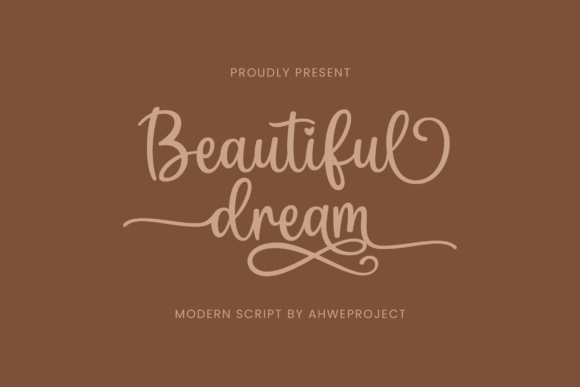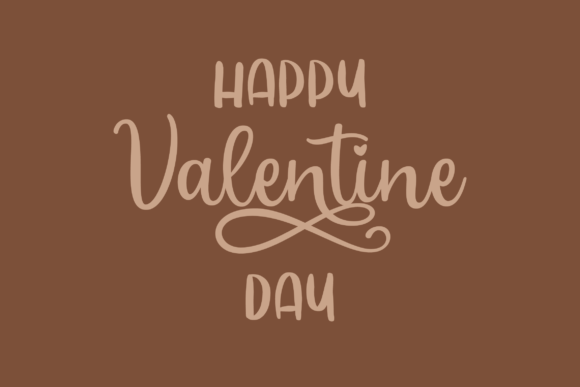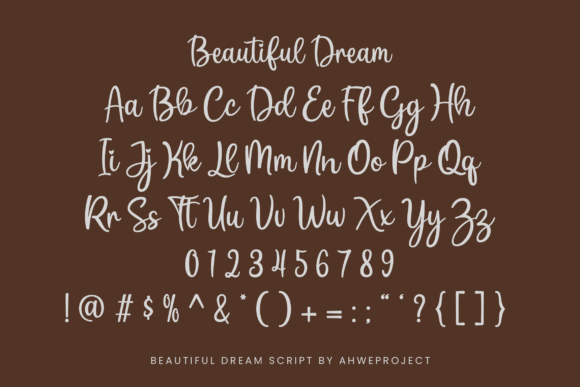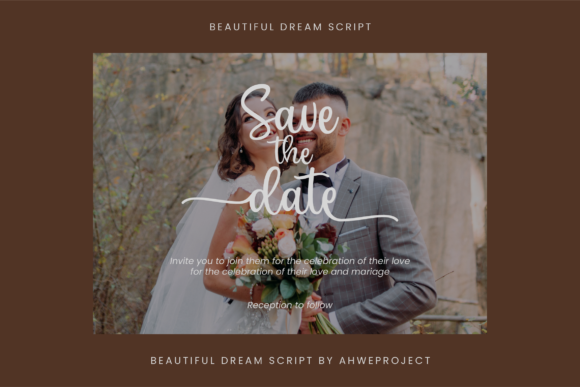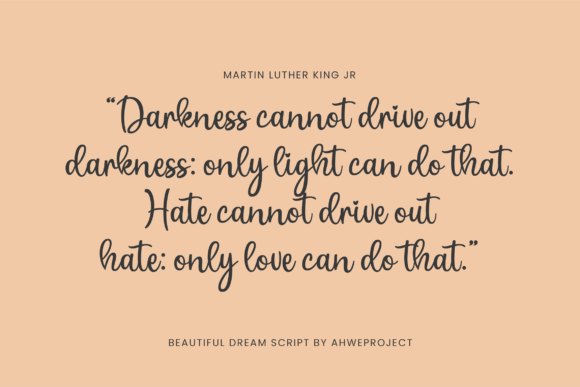
About Beautiful Dream Font
Beautiful Dream is a romantic and sweet calligraphy typeface with characters that dance along the baseline. It has a casual, yet elegant touch. This font is PUA encoded which means you can access all of the glyphs and swashes with ease!